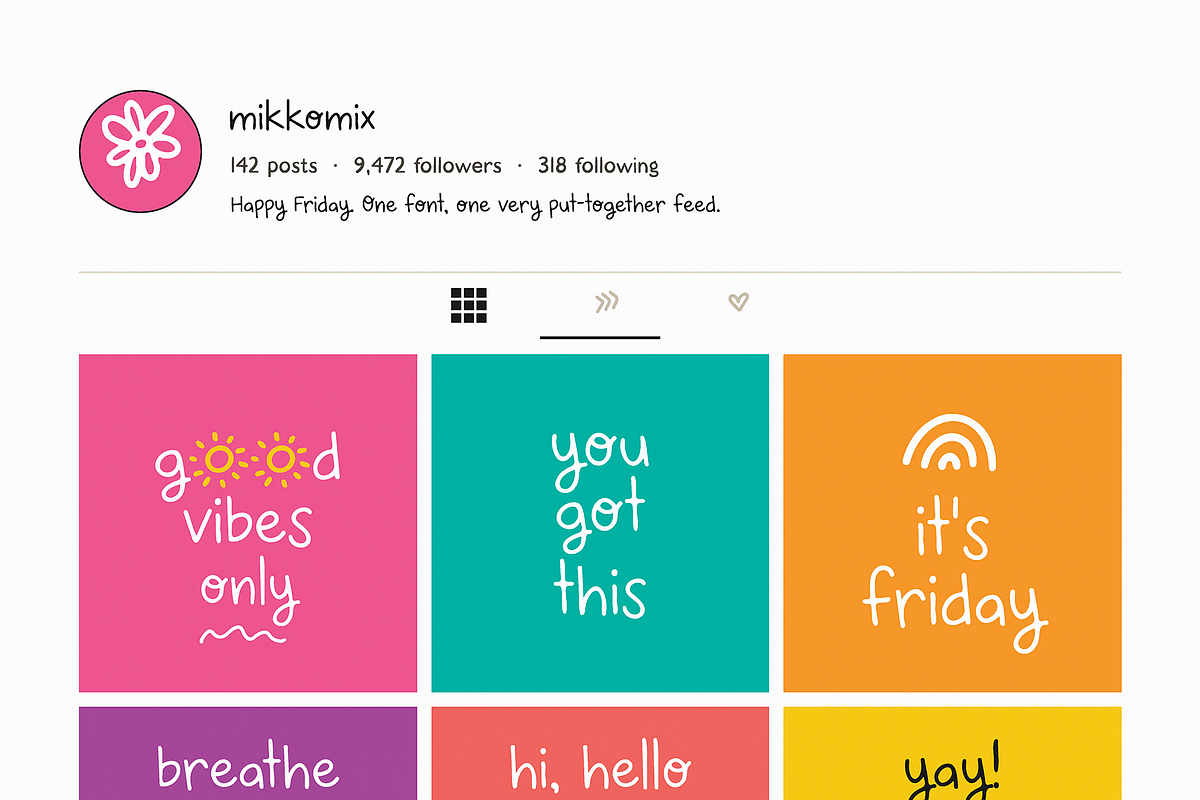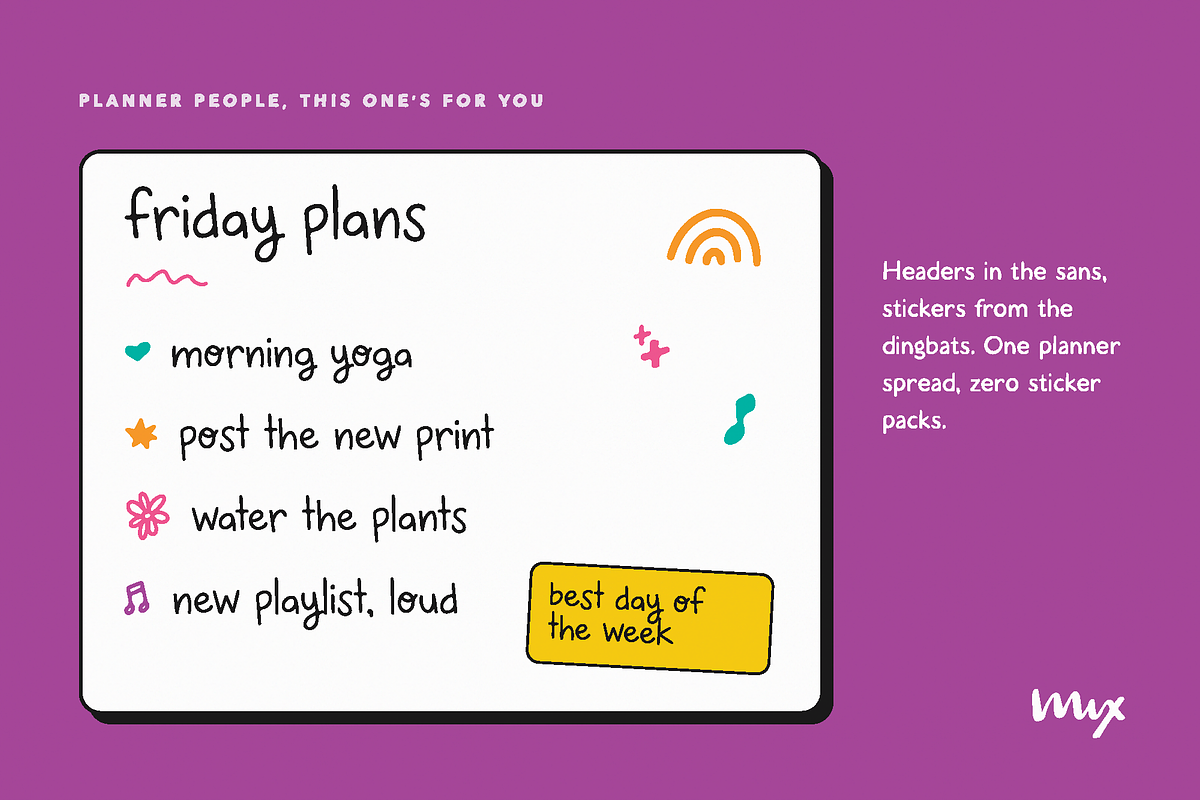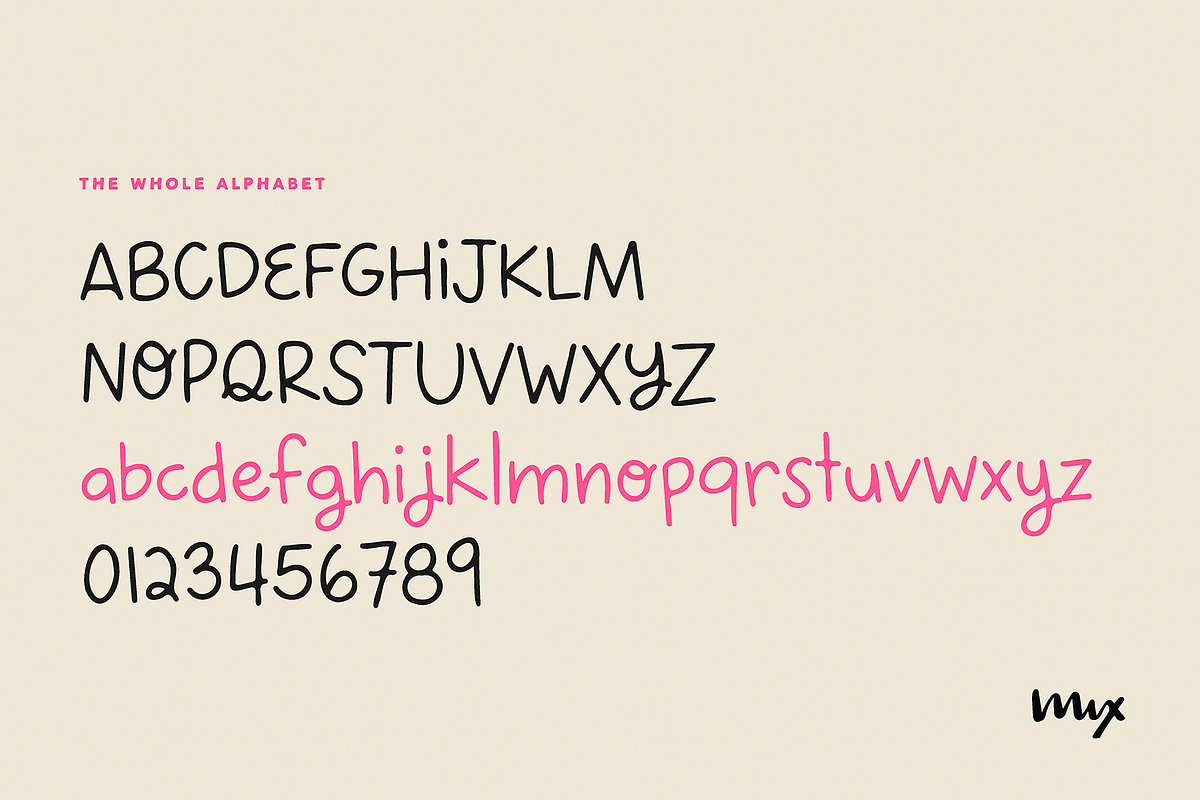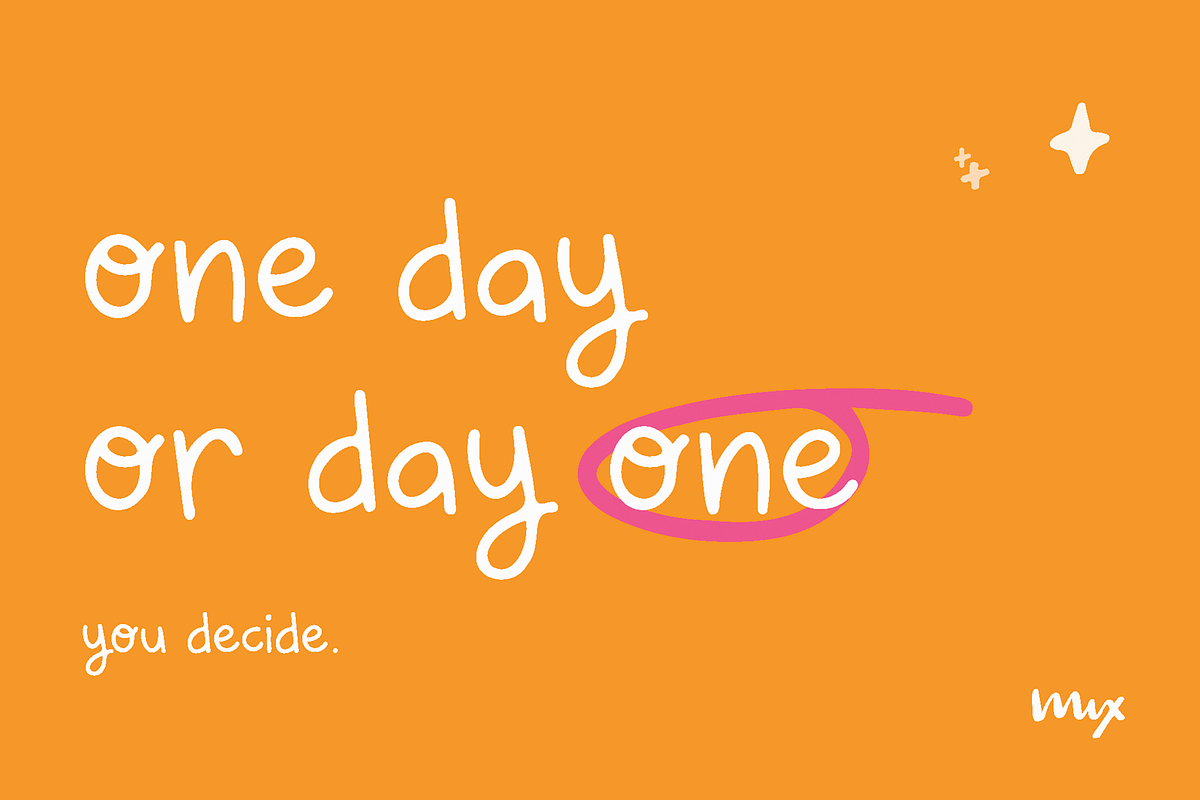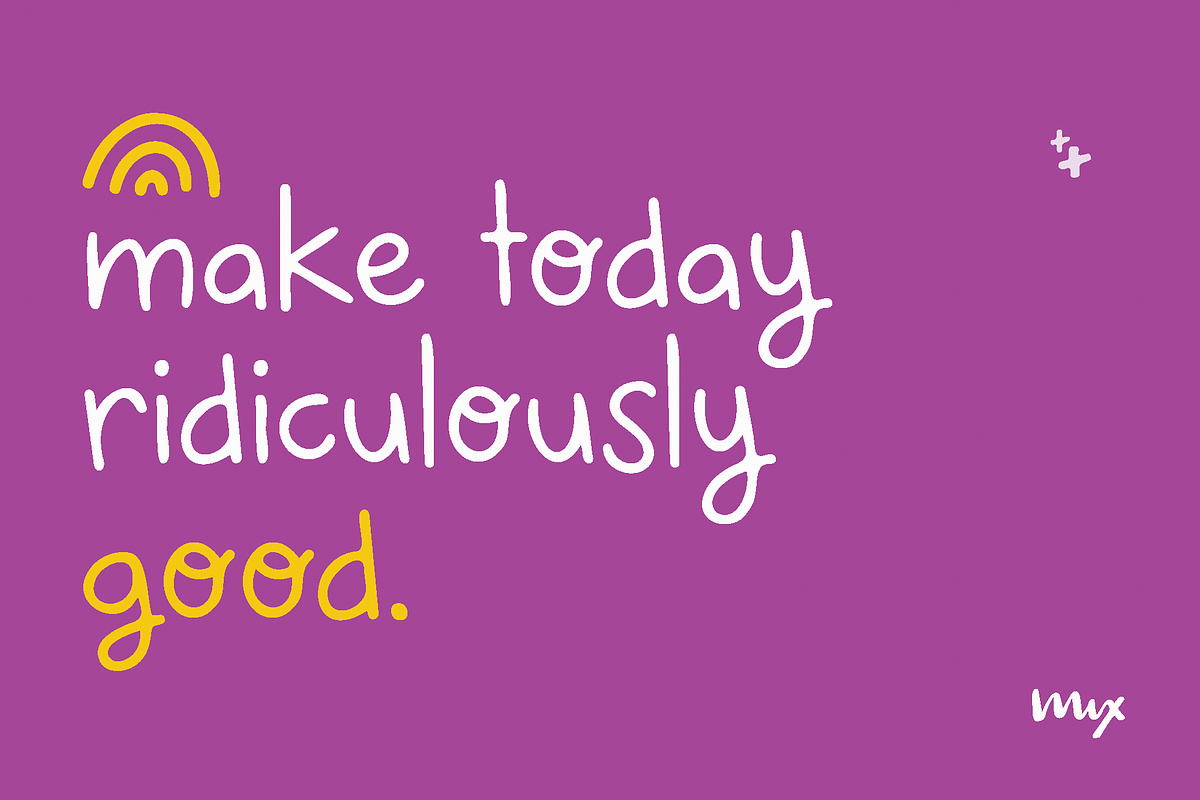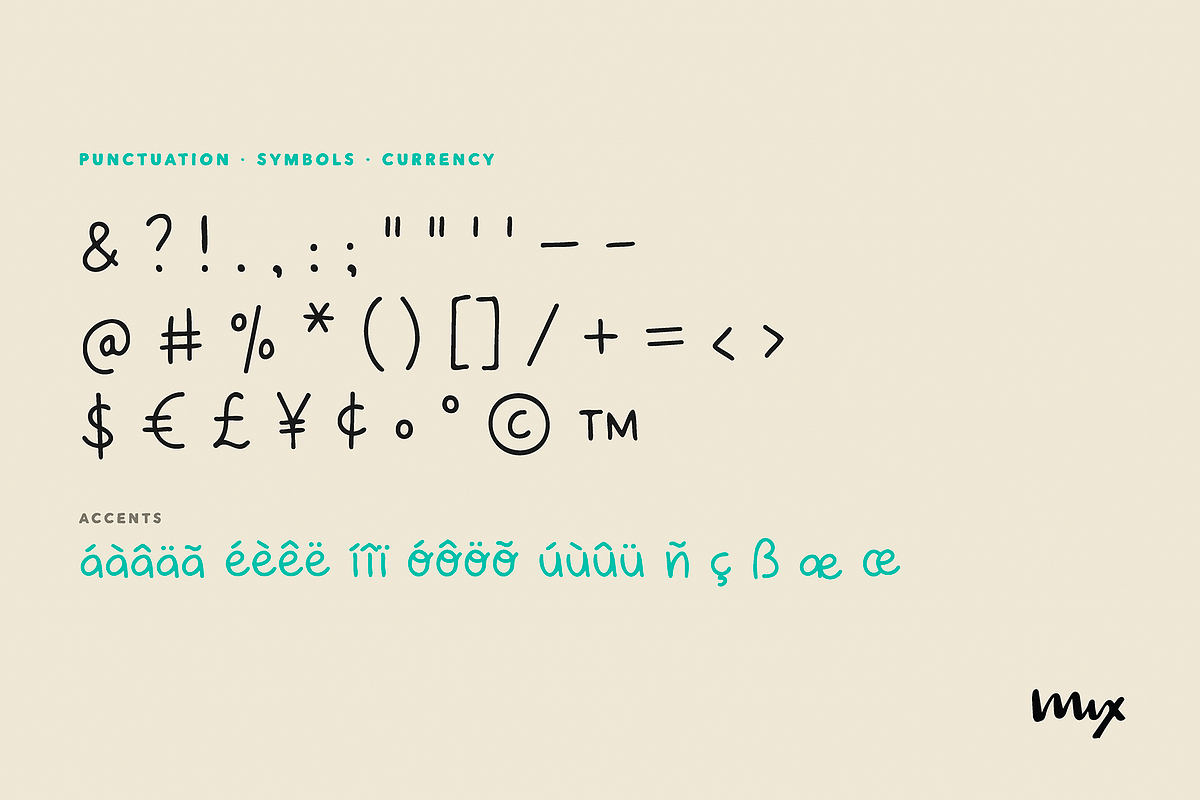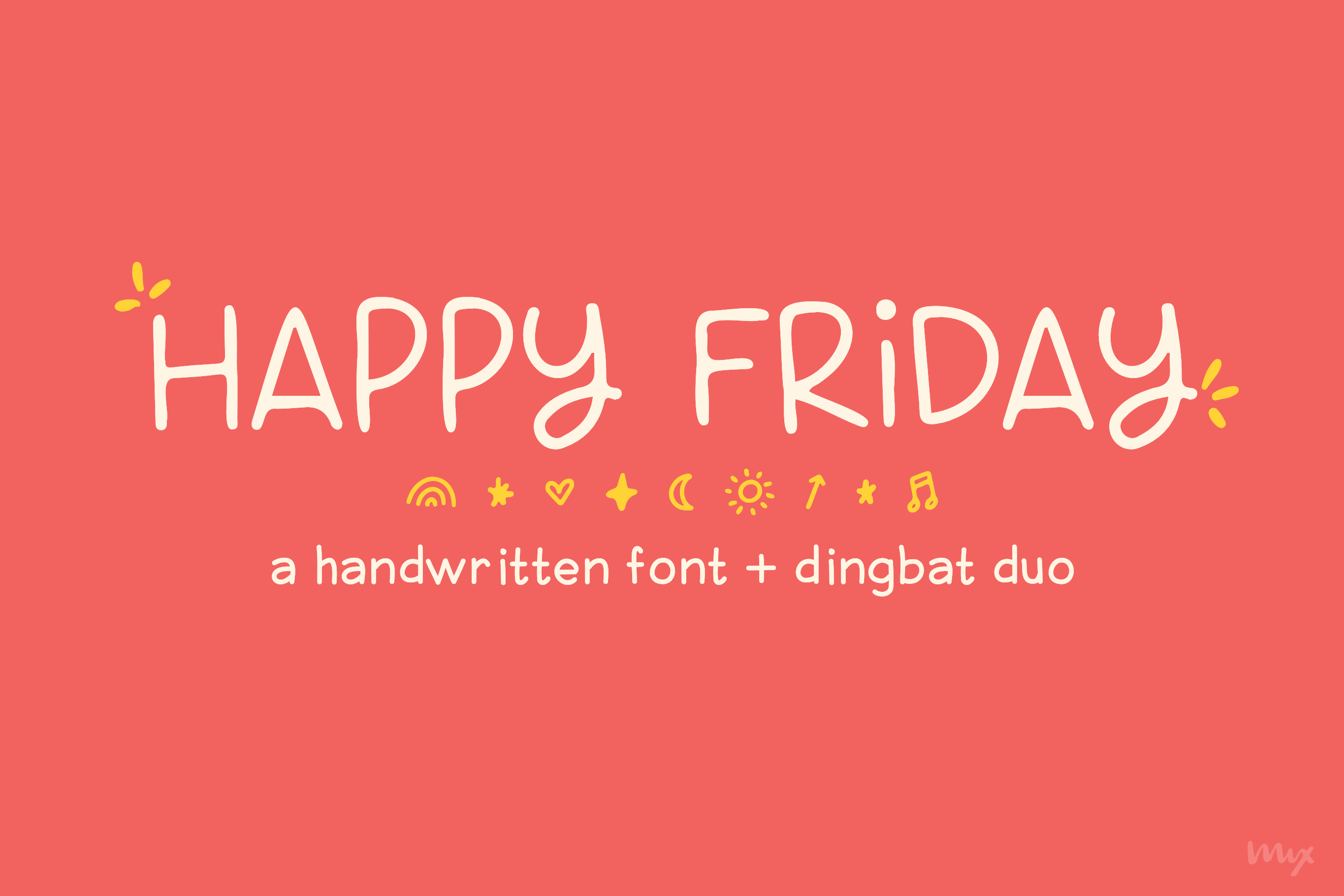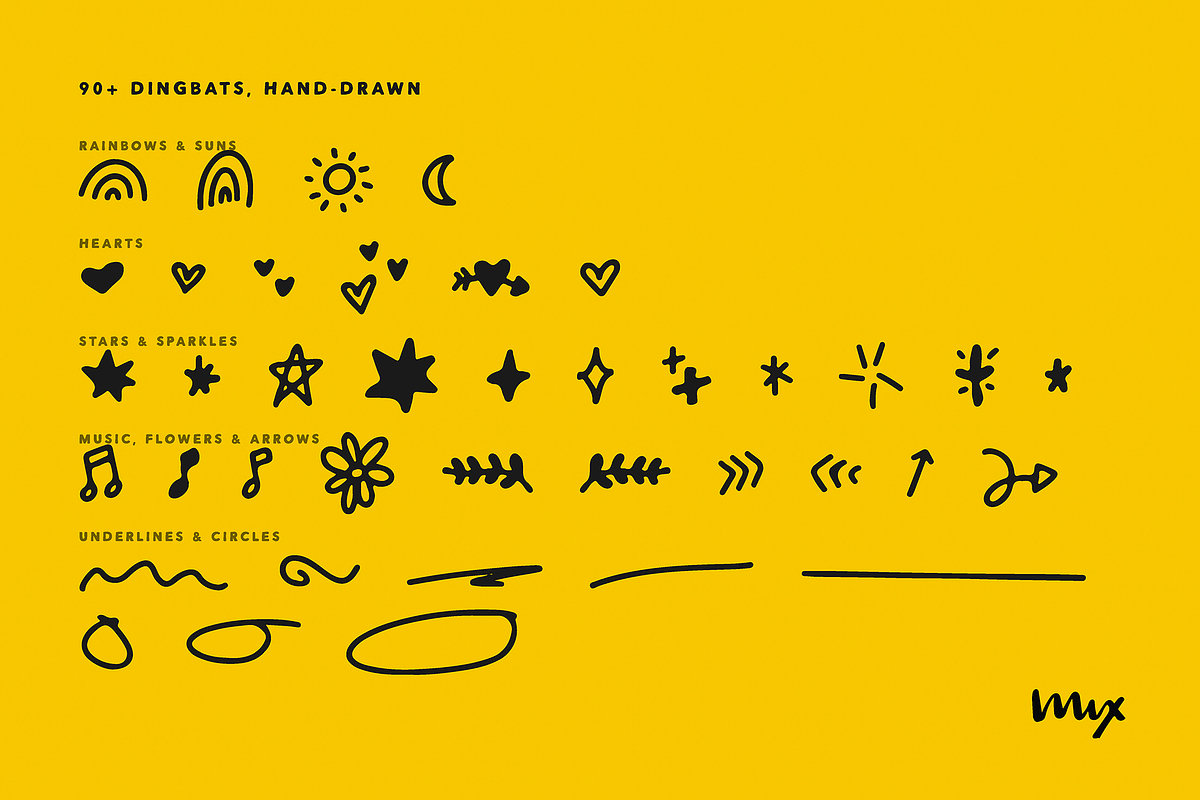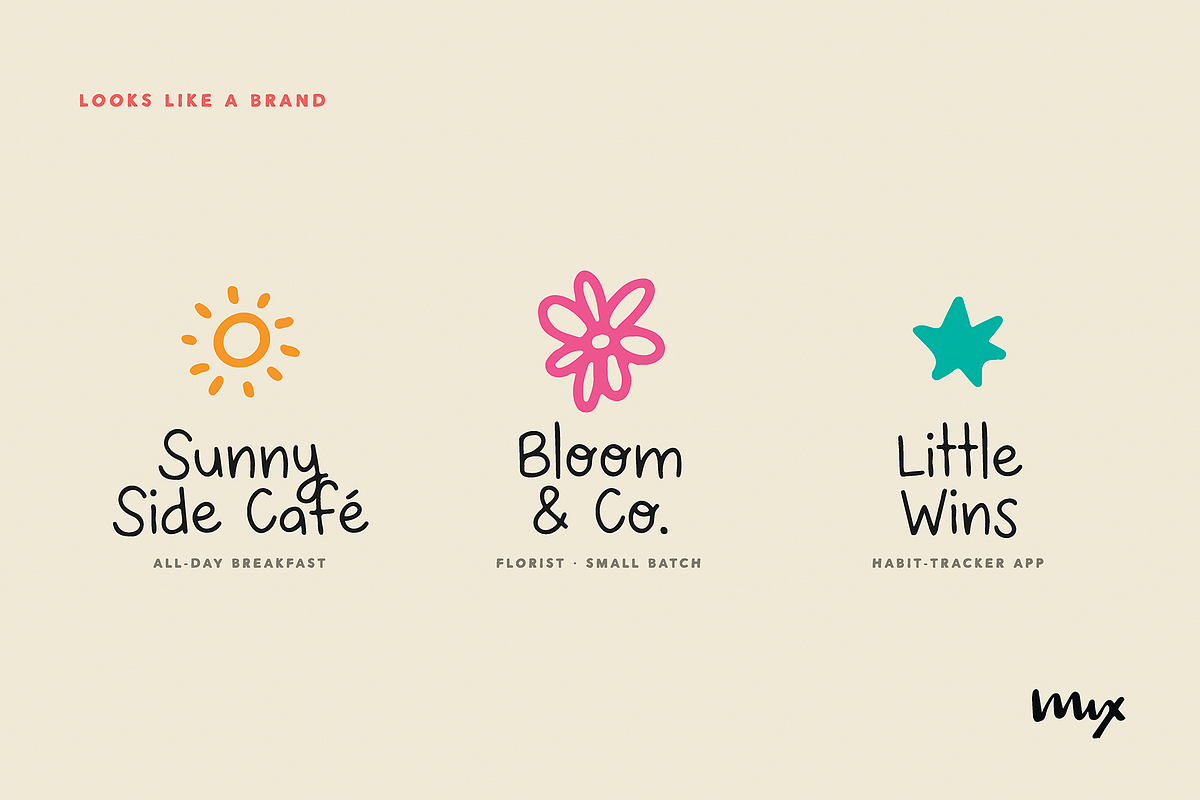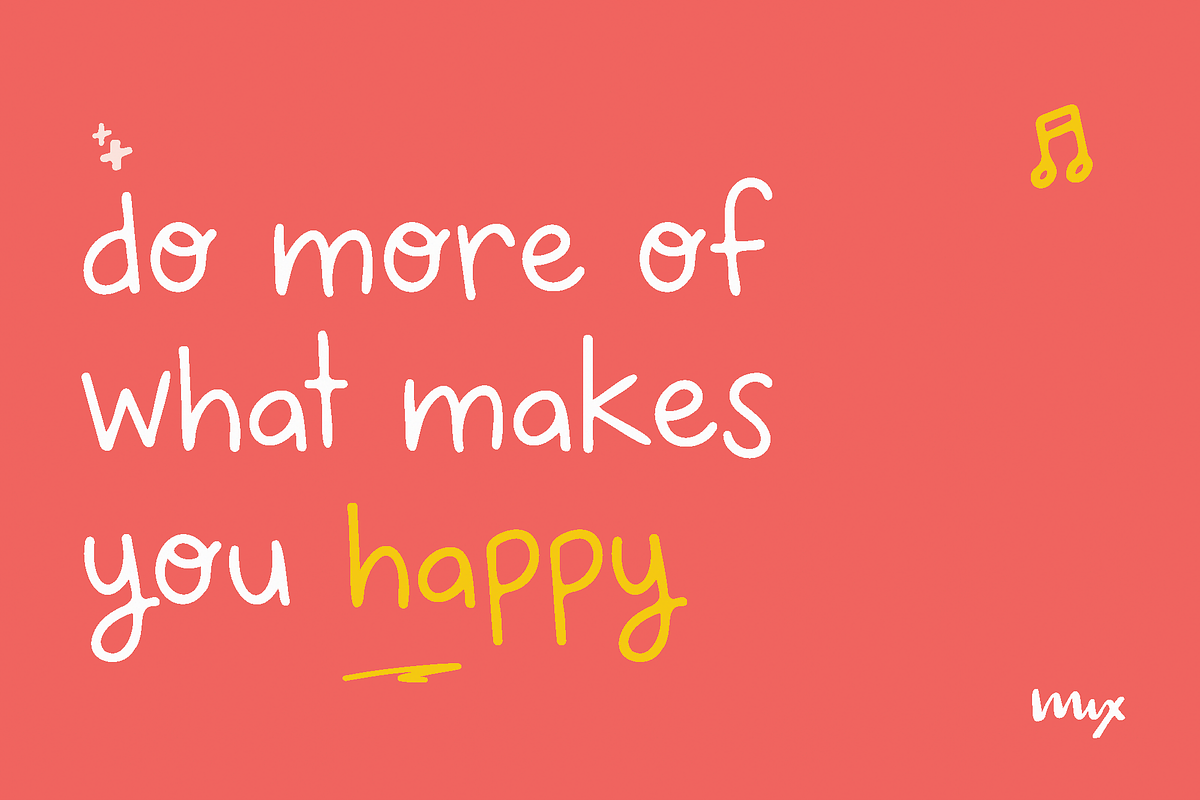
Happy Friday - Font & Dingbat Duo
Mix Happy Friday is the fastest way to a cute, cohesive content feed.
An upbeat handwritten font plus a matching dingbat set (rainbows, hearts, suns, stars, sparkles, squiggle underlines). The font sets your words, the dingbats finish the post, so a plain caption turns into something that looks designed.
Perfect for Canva creators, Instagram and social media managers, digital planner and journal makers (GoodNotes, Notability), Etsy shop owners, teachers, and small businesses who want a friendly, cohesive look fast. Use the dingbats as stickers, set your headers in the font, and your whole feed or planner matches.
Great for: Instagram posts and stories, Canva templates, digital planners and journals, printables, quote graphics, stickers, teacher resources, and cheerful branding.